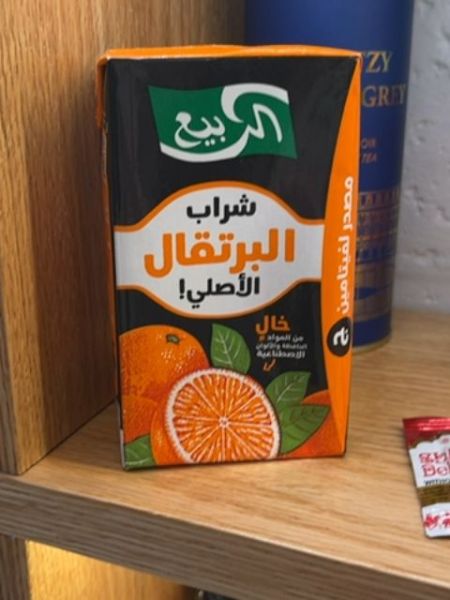
Al Rabi Juice
The typography on the packaging uses bold, sans-serif Arabic script to ensure clarity and impact. The use of white and black lettering against the orange and green background provides a strong contrast, enhancing legibility and making the product name stand out.
The packaging features a predominantly orange color scheme, typical of citrus products, with a detailed illustration of oranges to highlight its flavor. The carton is rectangular, easy to handle, and designed to be visually appealing on the shelf with vibrant and eye-catching elements.